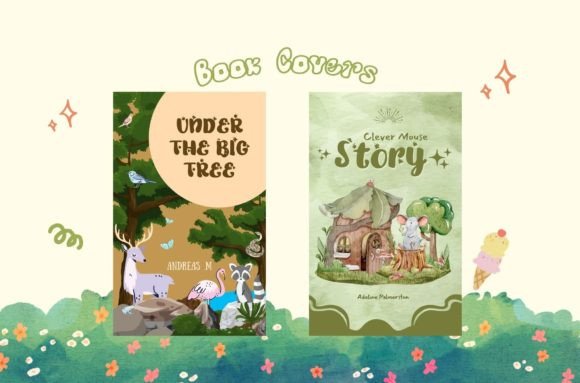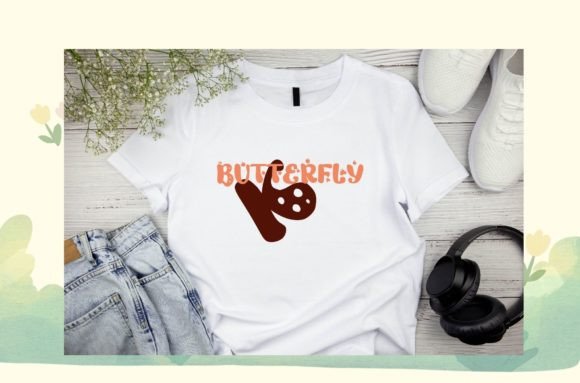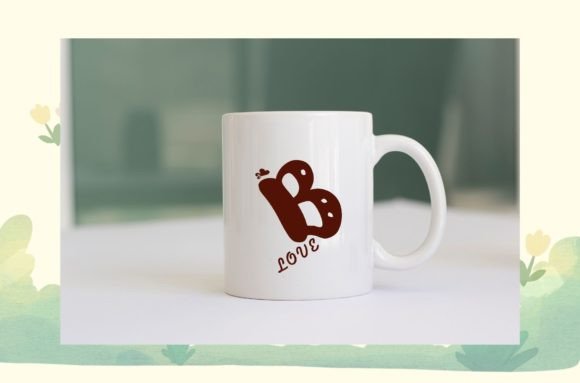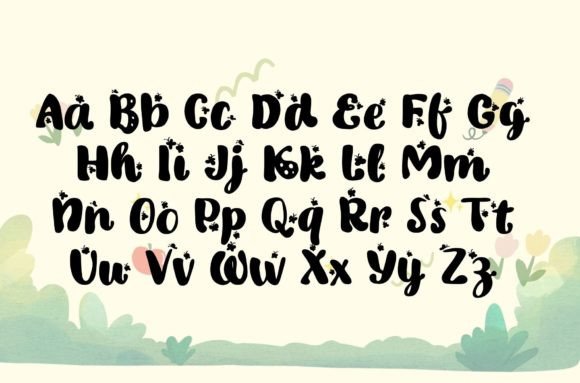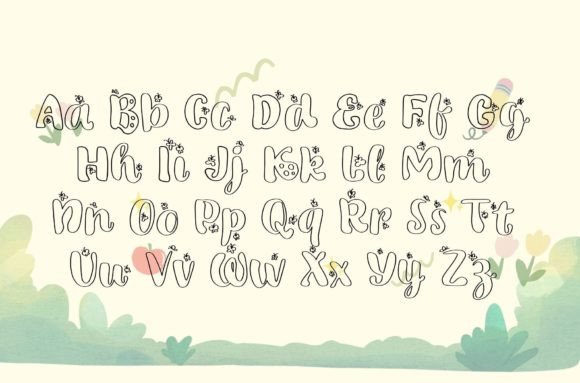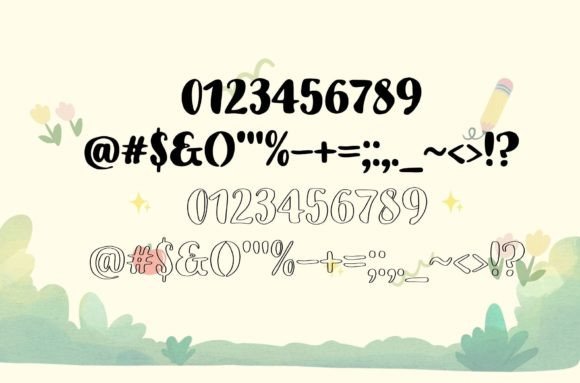
Introducing the Enchanting Butterfly Font: Add a Touch of Whimsy to Your Designs
Are you looking for a font that can add a dash of playfulness and elegance to your designs? Look no further than the Butterfly Font. This adorable decorative display font is inspired by the delicate beauty of butterflies, and its intricate details and curves are sure to captivate your audience. In this article, we’ll take a closer look at the Butterfly Font, its features, and how you can use it to elevate your designs.
The Inspiration Behind Butterfly Font
The Butterfly Font is designed to capture the whimsy and grace of its namesake. Each letter is carefully crafted to resemble the delicate curves and intricate details of a butterfly’s wings. The result is a font that is both playful and sophisticated, making it perfect for a wide range of design projects.
Key Features of Butterfly Font
So, what makes the Butterfly Font so special? Here are some of its key features:
- Delicate curves and intricate details: Each letter in the Butterfly Font is designed to mimic the intricate details and curves of a butterfly’s wings.
- Whimsical and elegant: The font has a playful yet sophisticated feel, making it perfect for designs that require a touch of whimsy and elegance.
- Perfect for feminine designs: The Butterfly Font is ideal for designs that require a feminine touch, such as invitations, children’s books, and feminine branding.
Use Cases for Butterfly Font
The Butterfly Font is versatile and can be used for a wide range of design projects. Here are some use cases to get you started:
- Children’s books: The Butterfly Font is perfect for children’s books, adding a touch of whimsy and playfulness to your story.
- Invitations: Use the Butterfly Font to create beautiful and elegant invitations for special occasions such as weddings, baby showers, and birthday parties.
- Feminine designs: The font is ideal for feminine branding, packaging, and advertising, adding a touch of elegance and sophistication to your designs.
The Butterfly Font is a beautiful and versatile font that can add a touch of whimsy and elegance to your designs. With its delicate curves and intricate details, it’s perfect for children’s books, invitations, and feminine designs. Whether you’re a designer or crafter, the Butterfly Font is sure to inspire your creativity and take your designs to the next level. So why not give it a try and let your creativity take flight with Butterfly?